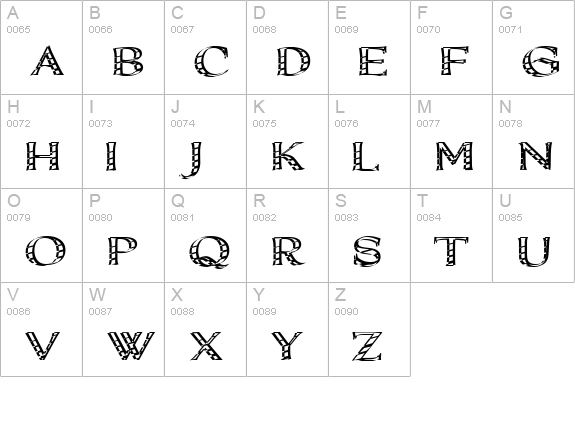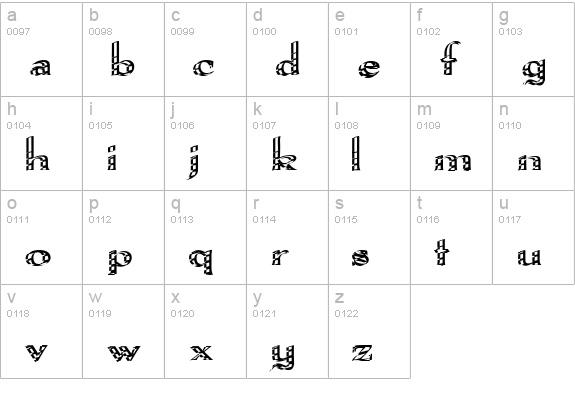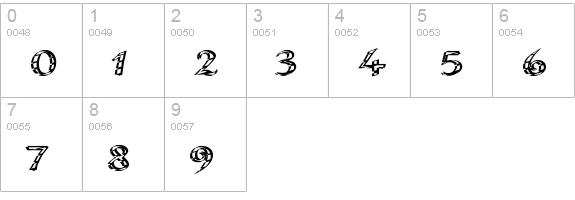
Pamelor I Font Details
Pamelor I font is a versatile and elegant typeface that combines classic elements with a modern twist. Its clean lines and graceful curves make it perfect for a wide range of design projects, from branding to editorial layouts. The Pamelor I font exudes a timeless sophistication that will elevate any design it is used in. What's more, Pamelor I font is completely free to download at FontsMarket.com. This means you can enhance your projects with this beautiful typeface without any cost or hassle. Don't miss out on the opportunity to add Pamelor I font to your font library and elevate your designs with its timeless elegance.